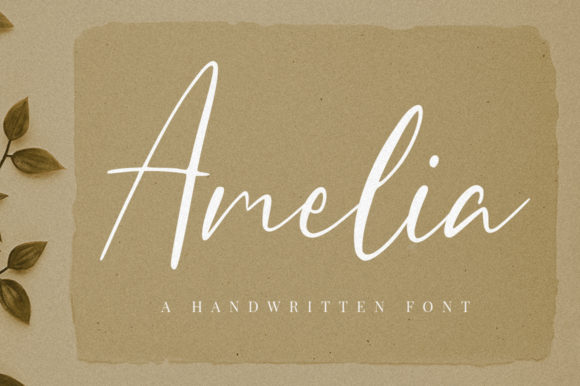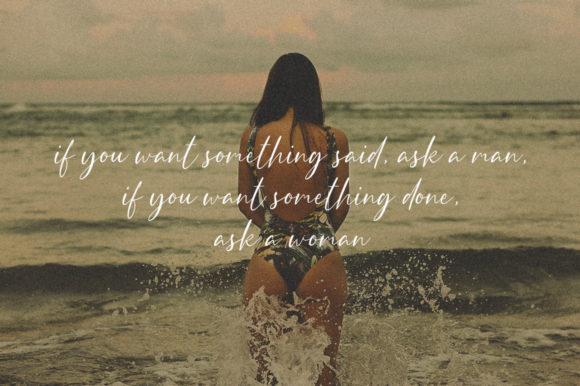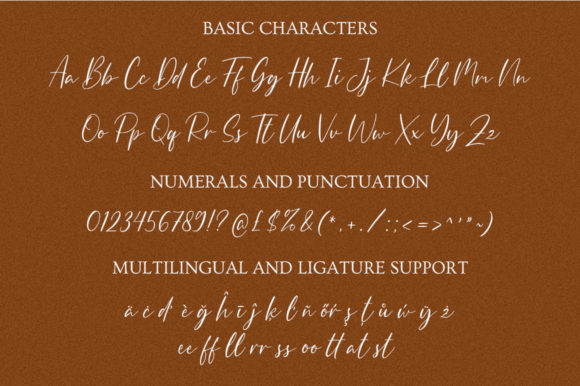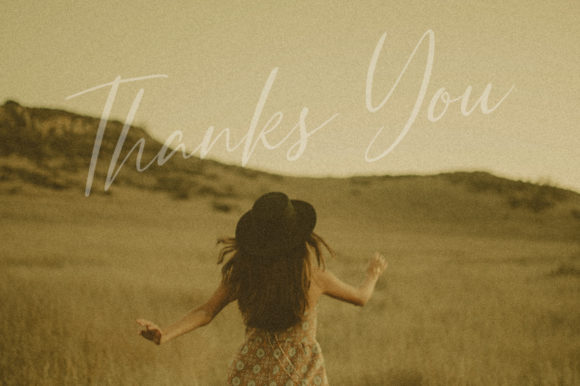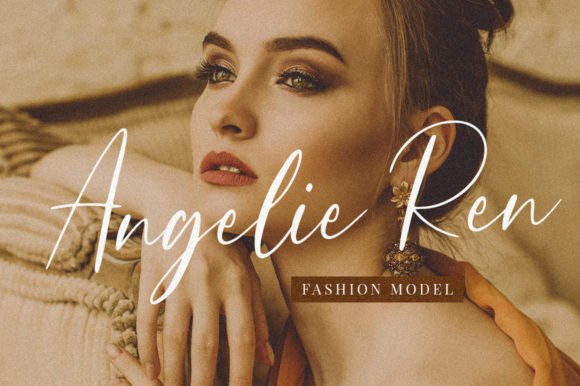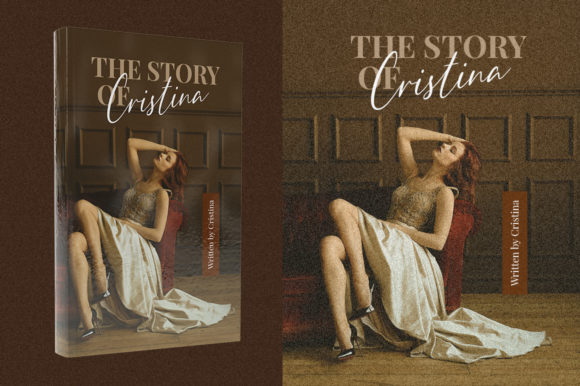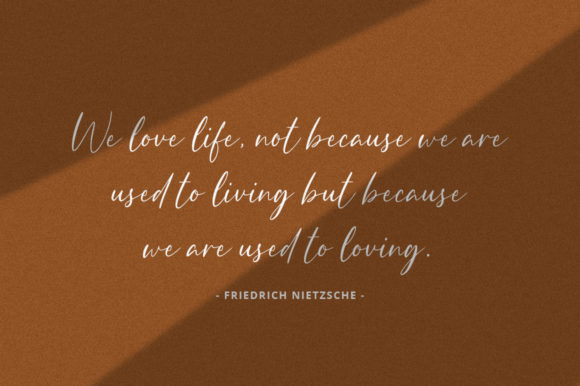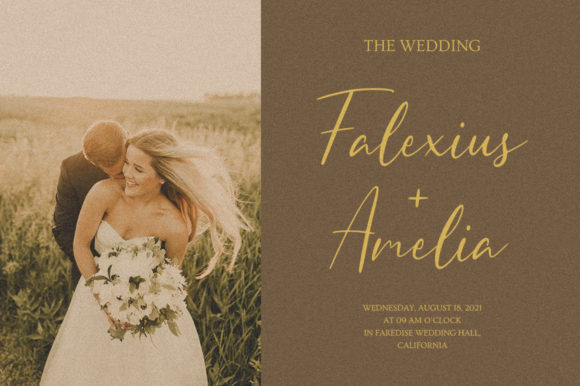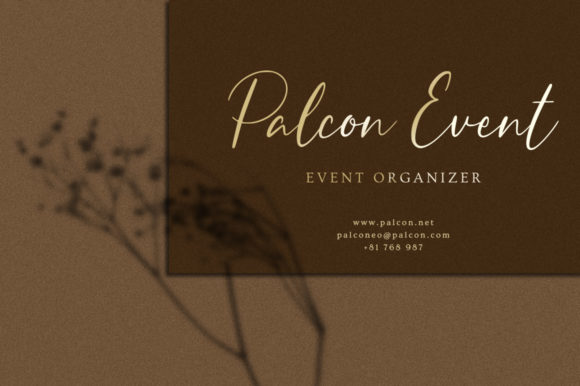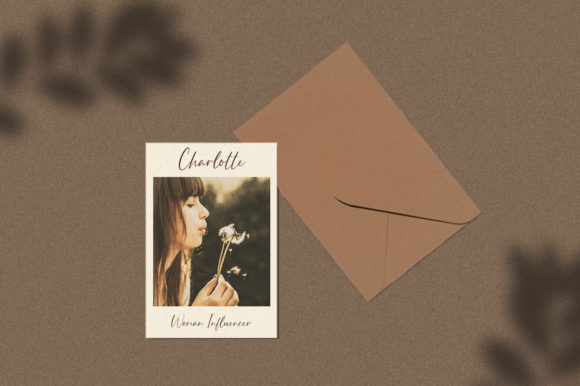
Amelia Font
About Amelia Font
Amelia simplifies elegance into one truly outstanding script font. Fall in love with its incredibly versatile style and use it to create gorgeous wedding invitations, beautiful stationary art, eye-catching social media posts, and much more!